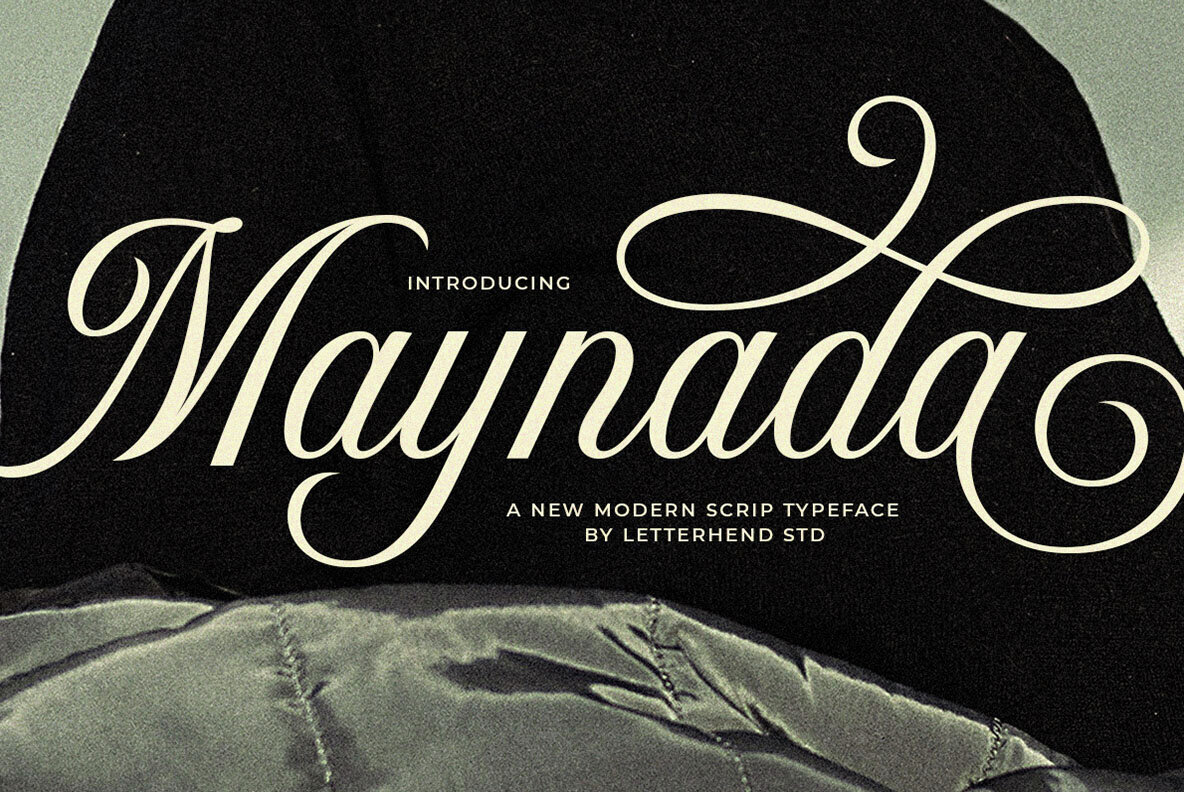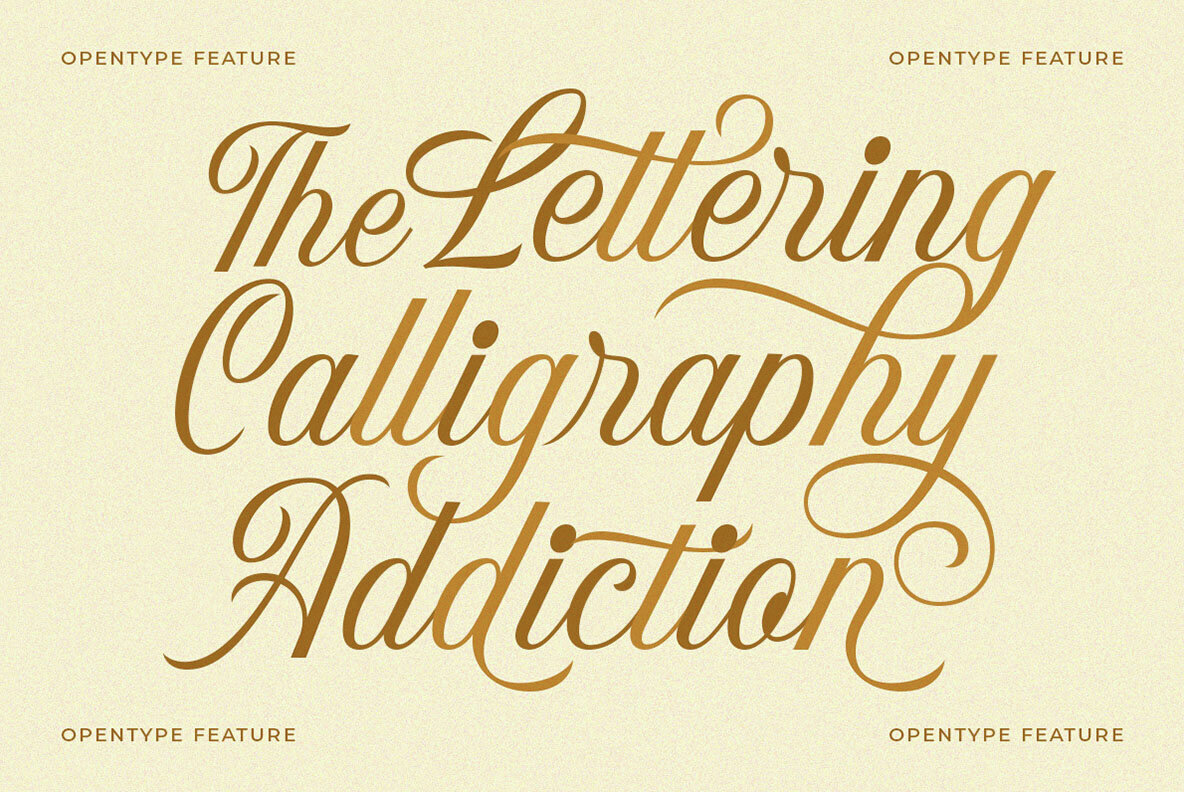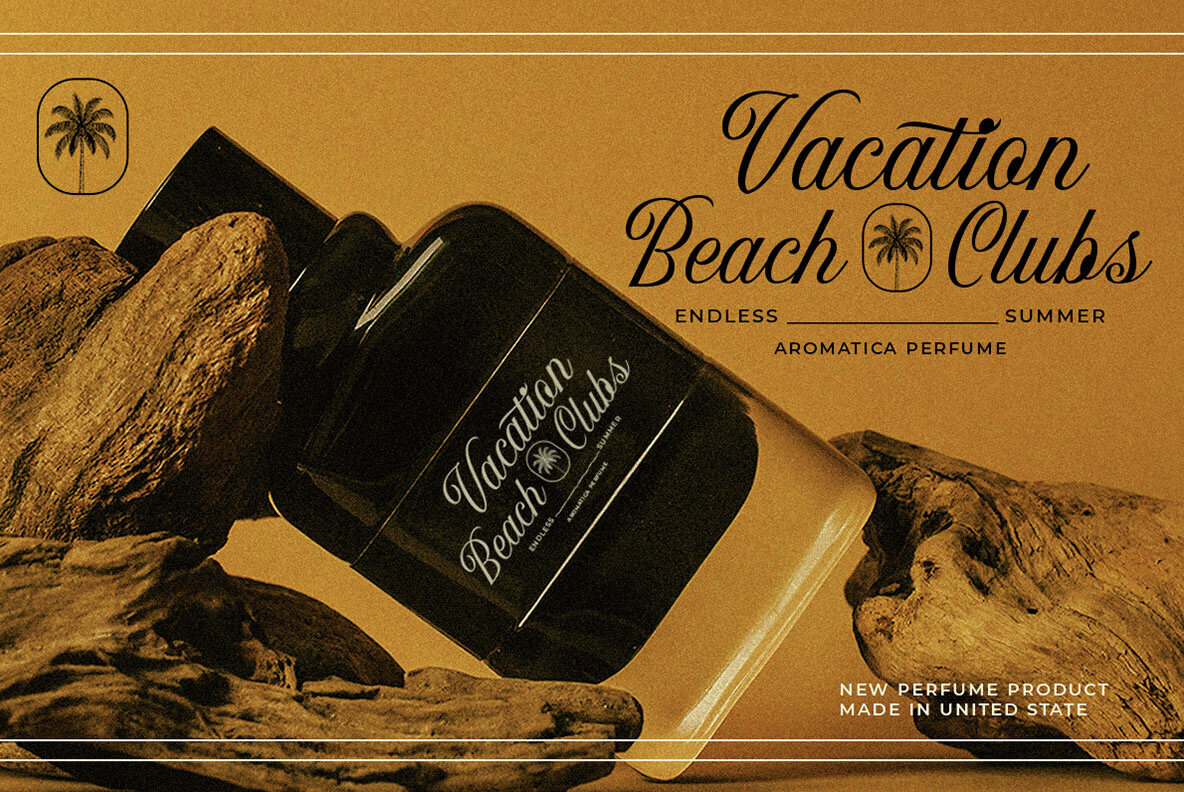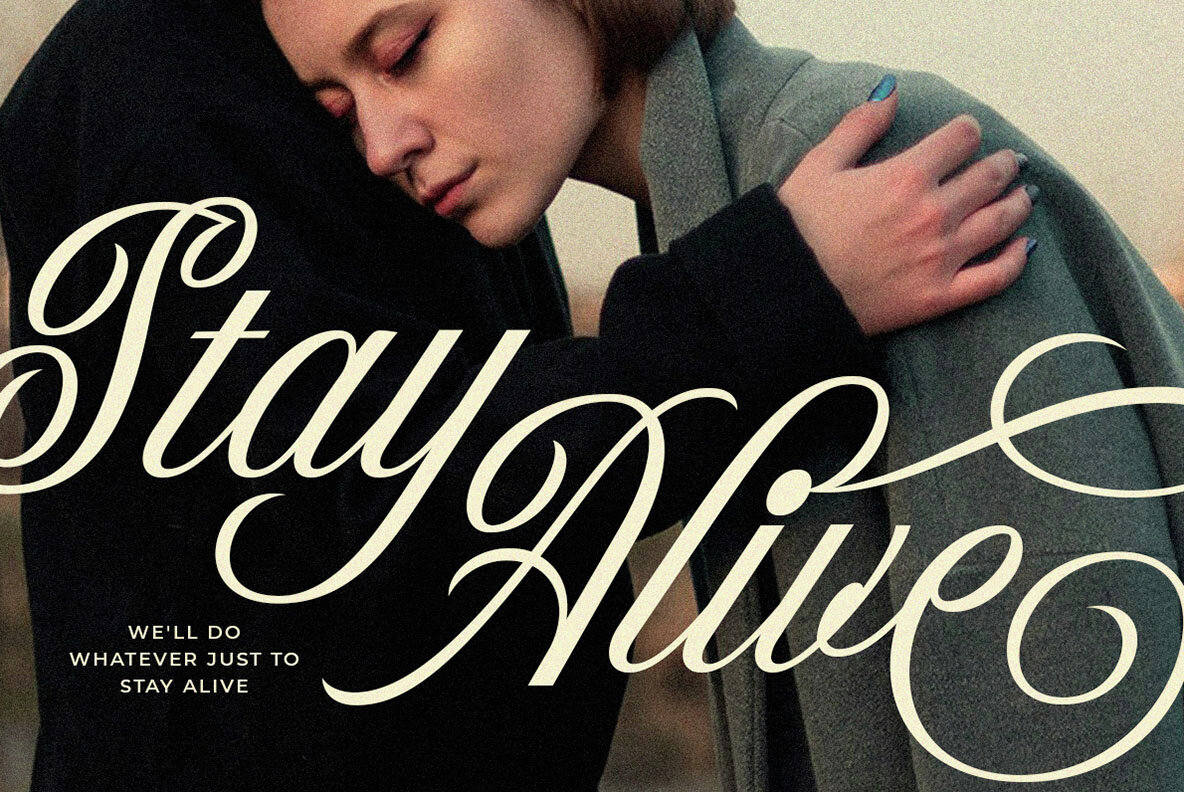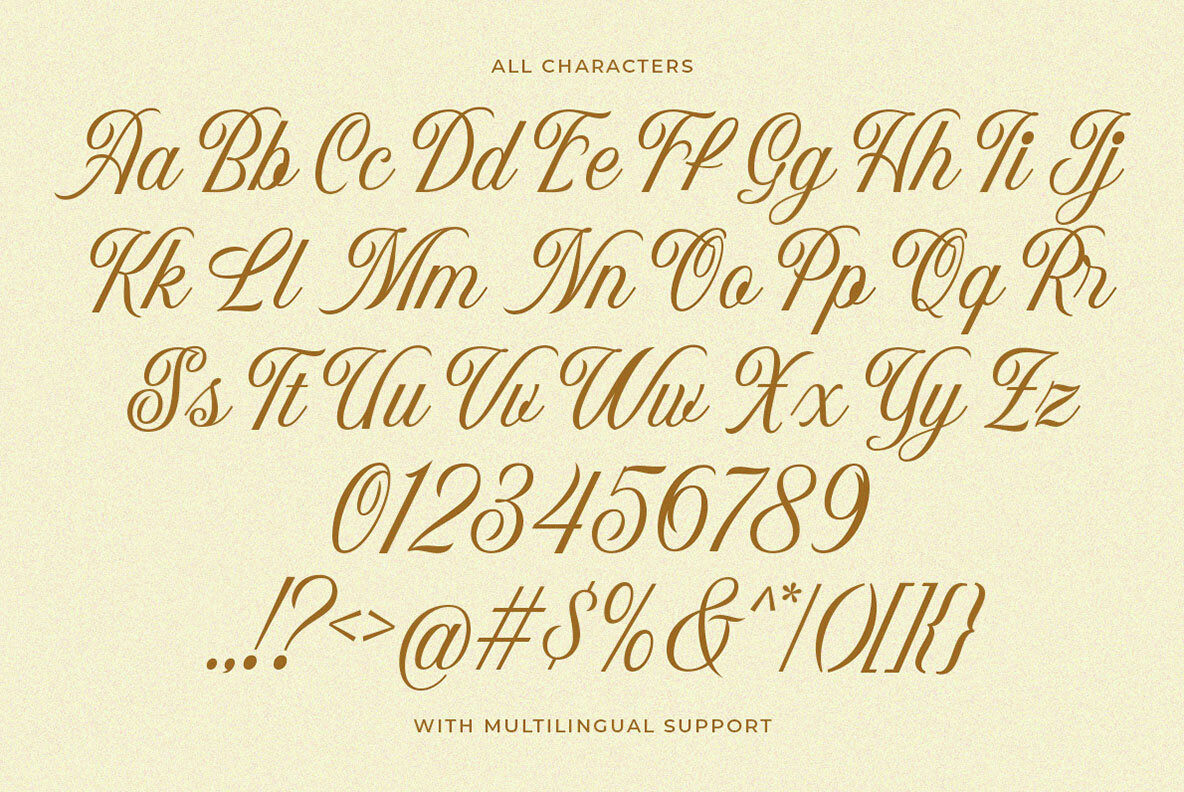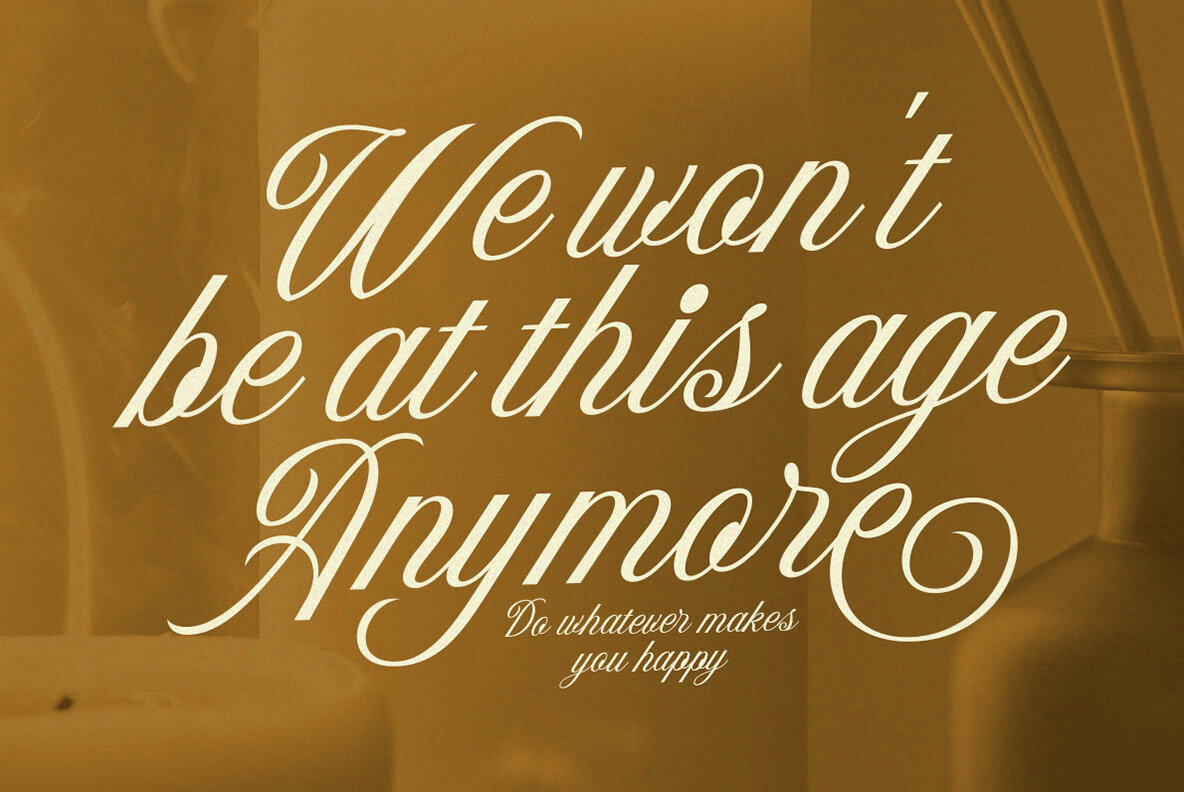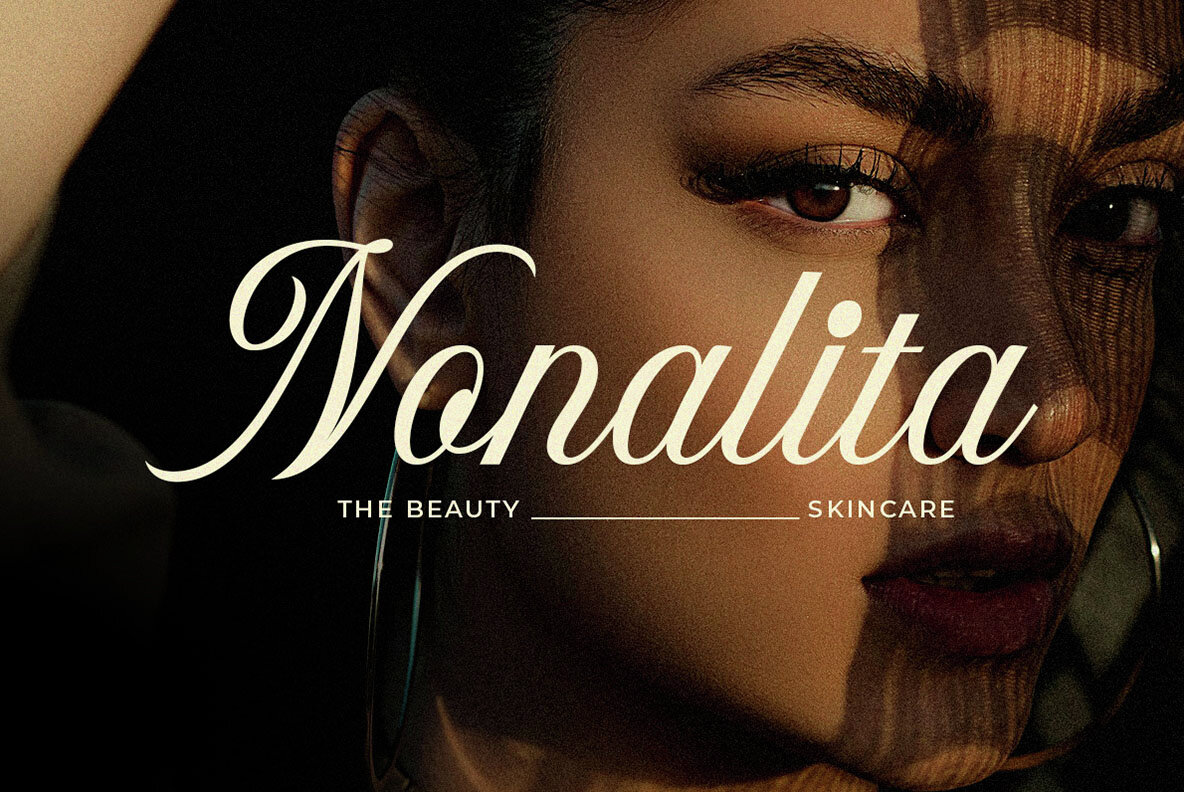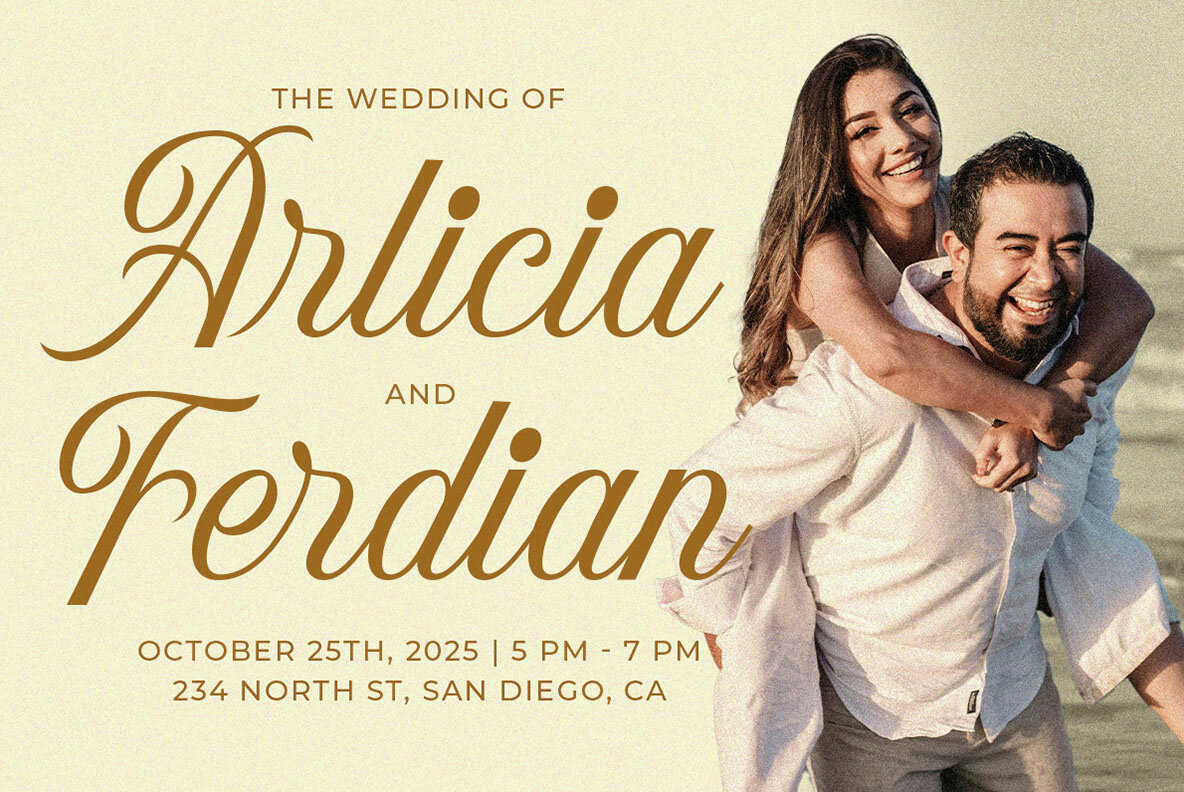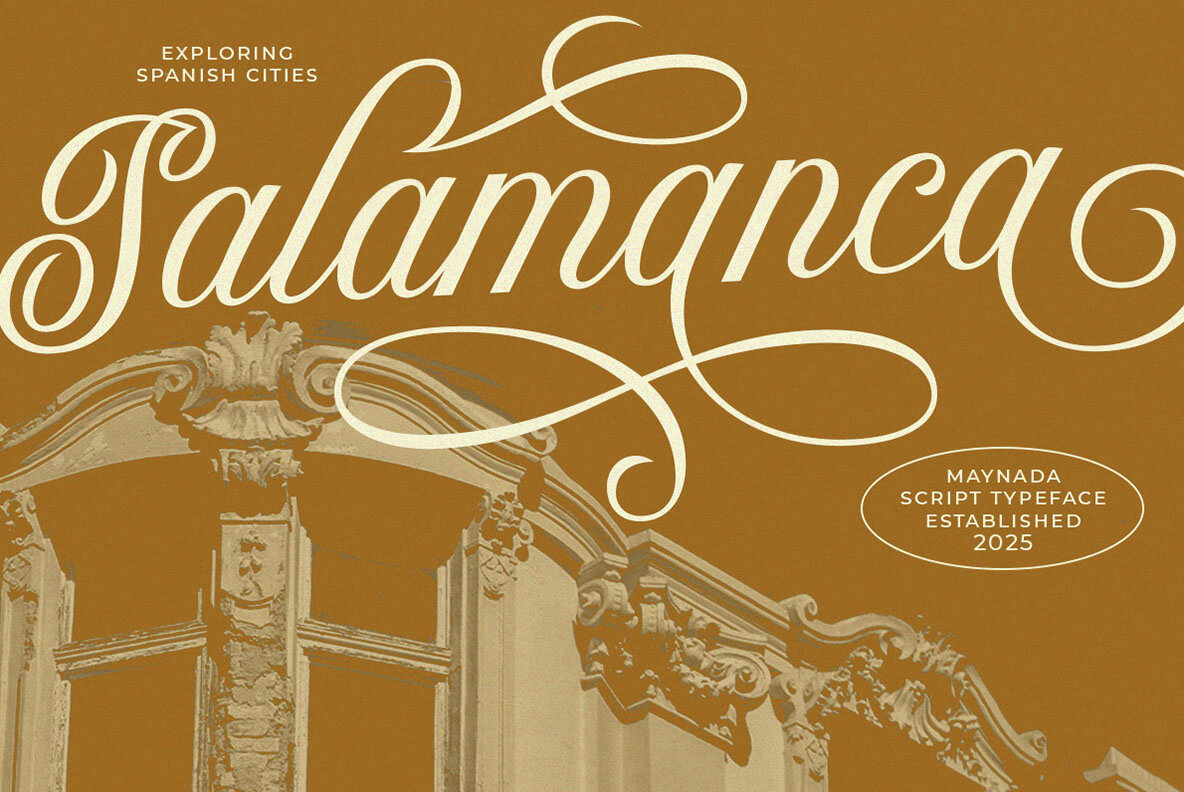
Maynada Font
Maynada
Maynada embodies a modern script typeface with an elegant flair and classic luxury. Its sleek lines and dramatic swashes make it perfect for creating striking designs in branding, wedding invitations, and high-end product packaging. Whether you're working on fashion editorials or projects that require a touch of glamour, Maynada's refined yet bold letterforms add sophistication and charm. This typeface is ideal for those aiming to achieve a feminine and timeless aesthetic. For the best experience with Maynada, we suggest using software with OpenType feature support and a Glyphs panel, such as Adobe programs and Corel Draw, to unlock its full range of options.Maynada Typeface